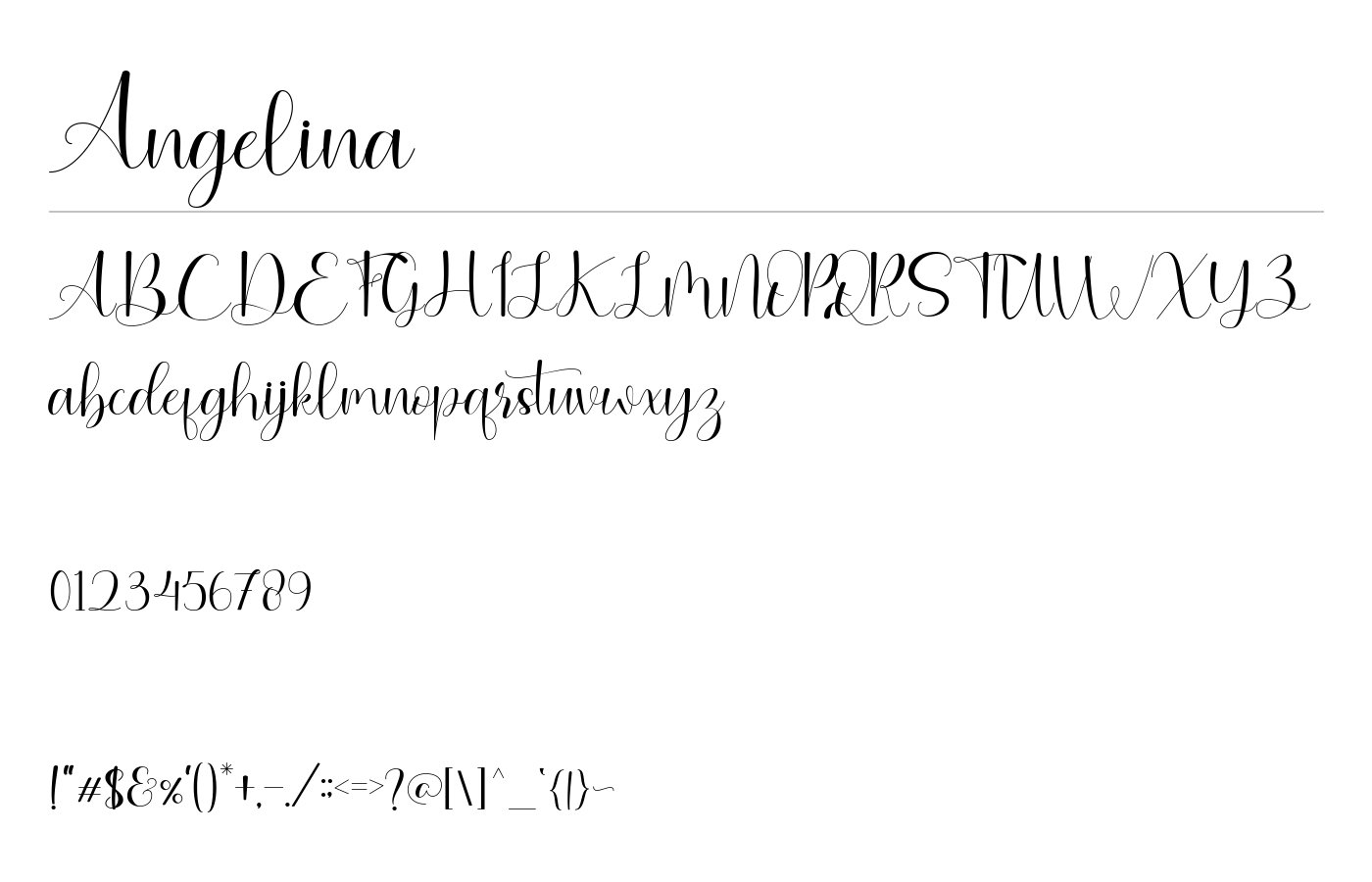
Angelina is an elegant, delicate script font featuring slender, flowing strokes with graceful swashes and a high contrast between thick and thin lines. Its refined, handwritten style exudes sophistication and charm, making it perfect for wedding invitations, luxury branding, and feminine editorial designs where a touch of romance and elegance is desired.
Angelina Font
About Angelina Font
| Font family | Angelina Font |
| Designer | JD Studio (Junaid) |